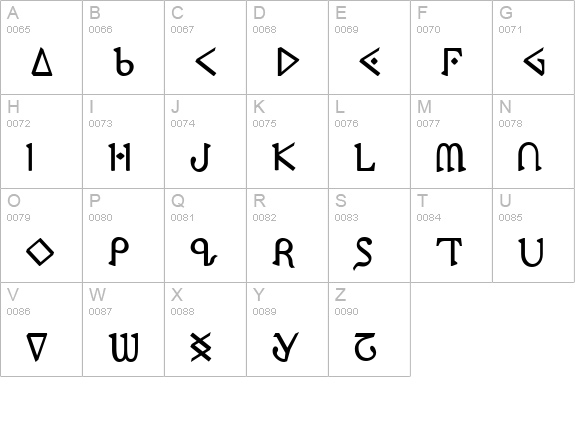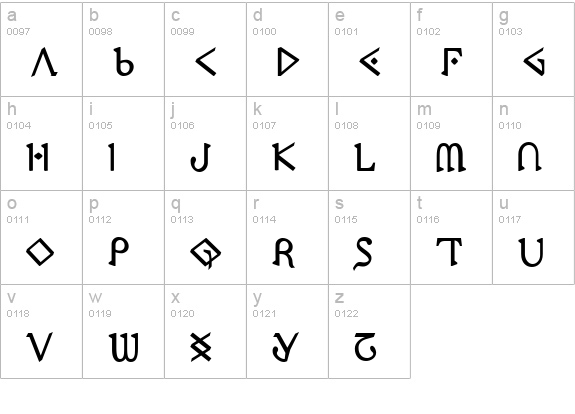
Presley Press Bold is a strong, high-contrast variant in the Presley typeface family \xE2\x80\x94 well suited to headlines, attention-grabbing titles, and strong calls-to-action.
Presley Press Bold font exudes confidence and modernity with its strong, bold strokes and sleek design. This eye-catching typeface is perfect for making a bold statement in your designs, whether it's for headlines, branding, posters, or social media graphics. The best part? Presley Press Bold font is completely free to download at FontsMarket.com. You can easily add this versatile font to your collection and use it in a wide range of projects without any cost. With its timeless appeal and striking presence, Presley Press Bold font is sure to elevate your design work and leave a lasting impression on your audience.